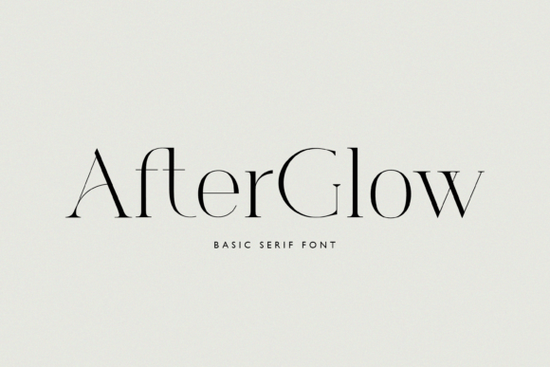
If you're looking for a serif font that feels both classic and quietly modern something that works as well on a wedding invitation as it does on a small-batch soap label Afterglow Font is worth your attention. It’s not overly ornate, but it carries quiet confidence: balanced letterforms, gentle contrast between thick and thin strokes, and just enough personality to stand out without shouting. Designers and small business owners often tell us they reach for Afterglow when they want typography that reads as thoughtful, not trendy.
When does Afterglow work best?
It shines in contexts where clarity and warmth matter more than flashiness. Think hand-lettered-style logos for local bakeries or boutique studios, printed stationery (especially foil-stamped or letterpress), and minimalist packaging for wellness or lifestyle brands. Because it’s a serif with soft edges not sharp or rigid it pairs easily with clean sans-serifs for body text, or even subtle script accents for contrast.
One reason it’s become popular among print-on-demand sellers is how well it scales. At 12 pt, it’s legible and graceful in product descriptions. At 72 pt, it holds its shape beautifully on mugs or tote bags without losing nuance. Unlike some display serifs that blur or lose definition at smaller sizes, Afterglow maintains readability across formats from Instagram story text overlays to PDF wedding programs.
How does it compare to other serif fonts on Creative Fabrica?
It shares some DNA with Mosca Laroke, which has stronger calligraphic influence and slightly higher contrast but Afterglow feels more grounded and neutral. If you’ve used Cloudy Aurora, you’ll notice Afterglow lacks the airy, floating quality of that font; instead, it offers steadier rhythm and tighter spacing, making it easier to set in longer blocks of text like event timelines or brand guidelines.
Compared to Unexpected Typewriter, Afterglow doesn’t lean into retro texture or imperfection it’s smoother, more refined. And while Astrid brings a delicate, almost handwritten lightness, Afterglow balances elegance with structure. That makes it especially useful when you need consistency across multiple touchpoints: website headers, business cards, and social media banners all feel like part of the same visual language.
Where do real users actually use it?
We’ve seen crafters apply Afterglow to laser-cut wooden coasters, where its even stroke weight prevents burn-through issues. Print-on-demand sellers use it for vintage-inspired tea towel designs paired with muted earth tones, it reads as timeless rather than dated. Local florists choose it for seasonal email headers (“Spring Arrangements Now Available”) because it feels fresh but never fussy.
One designer told us she used it for her client’s artisanal candle line: “The font didn’t compete with the photography or scent names it just held space gracefully.” That’s a good litmus test. If your goal is to support content not overshadow it Afterglow Font tends to deliver.
A quick checklist before downloading
- You need a versatile serif that works for both headlines and short body copy (e.g., product tags, labels)
- You prefer subtle character over dramatic flair no extreme swashes or heavy shadows required
- Your projects include physical printing (invitations, packaging) or digital use (websites, social graphics)
- You want full language support for common Western European languages
- You’re open to pairing it with a friendly sans-serif (like Poppins or Lato) or a light script for contrast
If those match your needs, Afterglow is likely a solid, low-risk addition to your font library especially if you already own bolder or more decorative serifs and want something quieter to balance them.